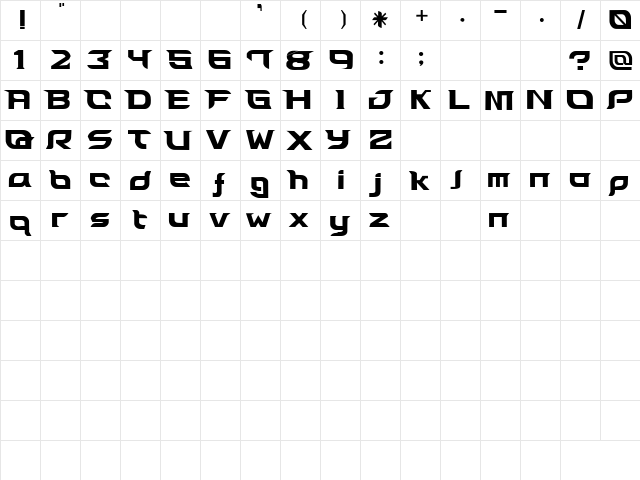
LEAF Regular
Design Context for LEAF Typeface
LEAF is a composed and adaptable typeface that performs quietly and consistently across a wide range of design contexts.